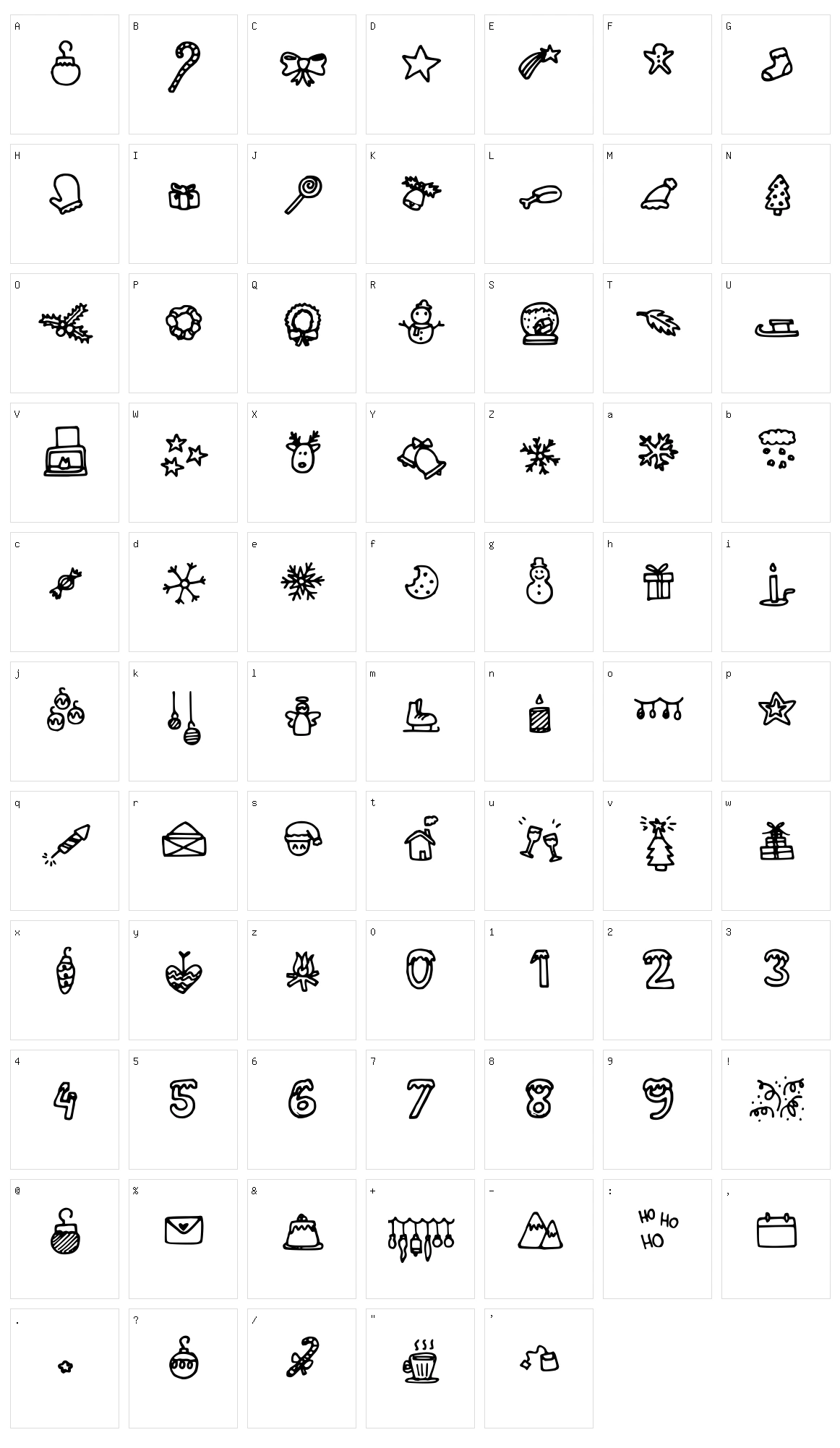
The free font Lettertype Mies Christmas Icons is carefully designed by Studio MIES, showcasing a thoughtful balance of creativity and usability and falls under the Christmas font style. When you download the ZIP file, it contains only 36.71 KB of font files, making it lightweight and quick to download. Please review the license details below to understand permitted usage and distribution rights. If license information is not available, we recommend using this font for personal projects only or contacting the author directly for commercial usage permissions.